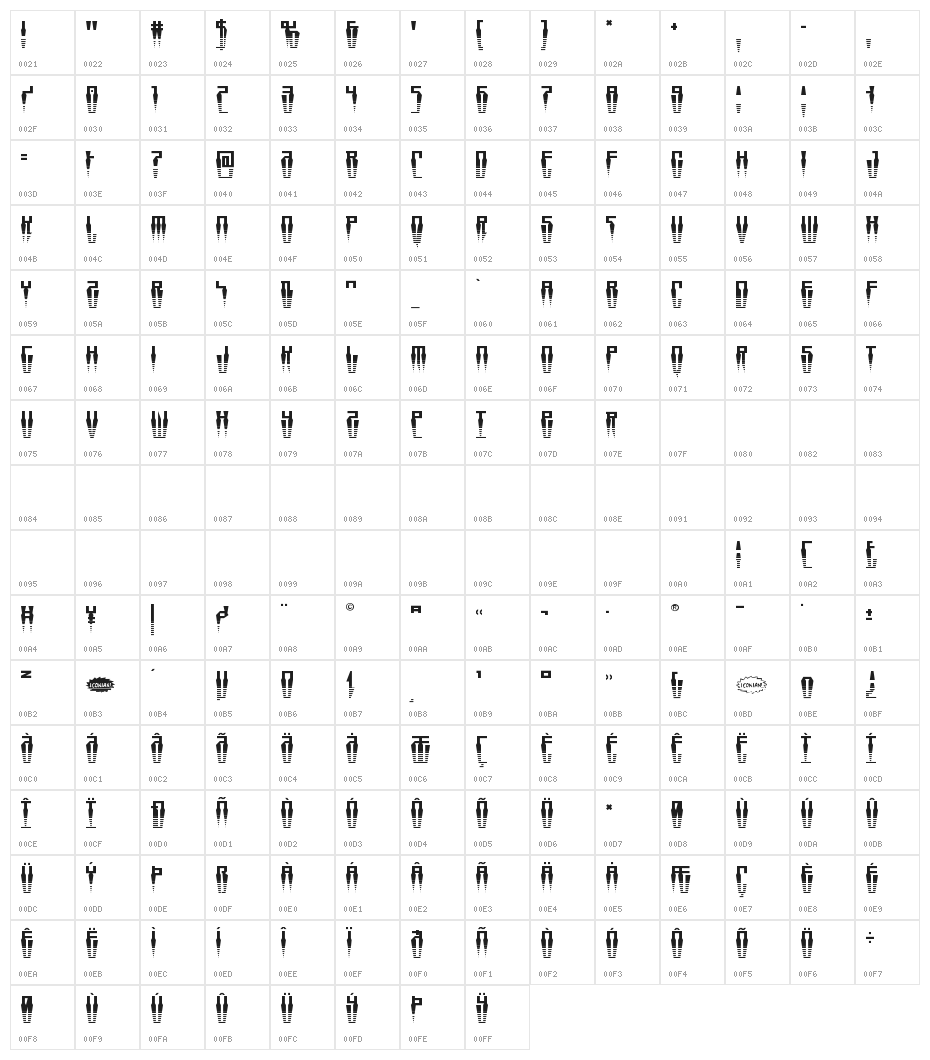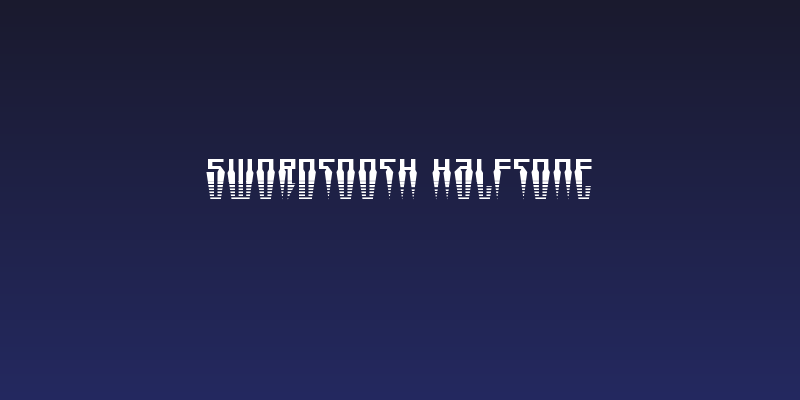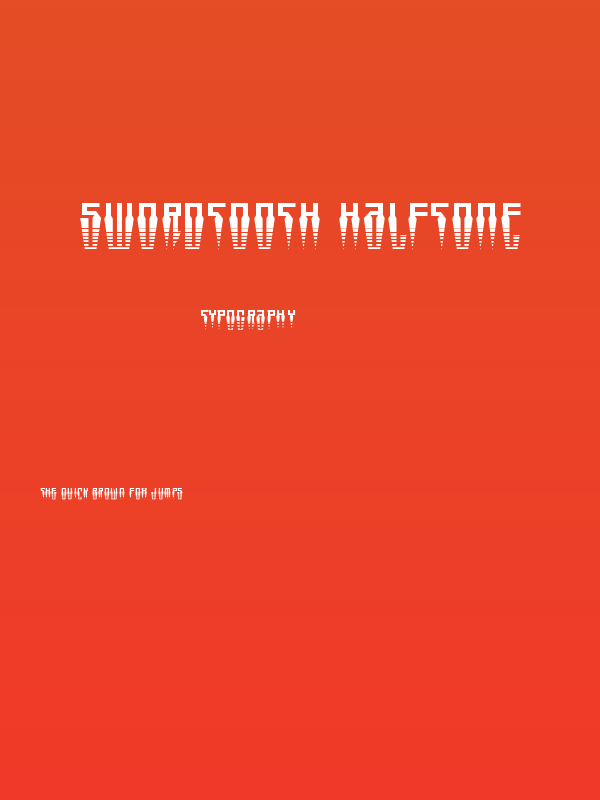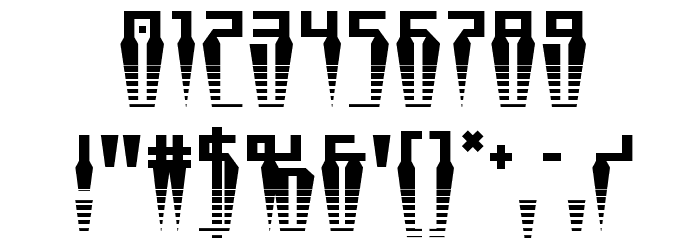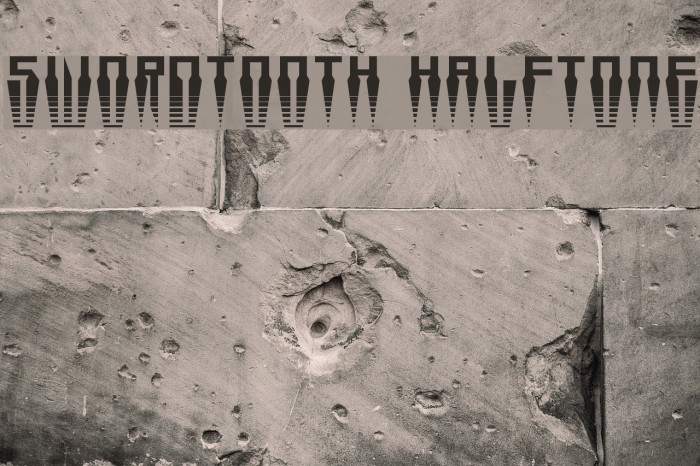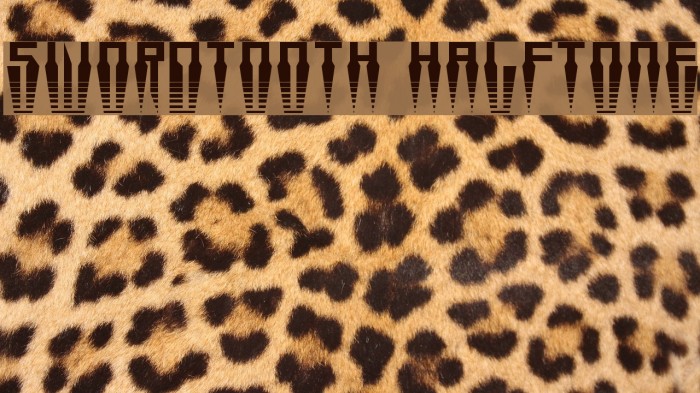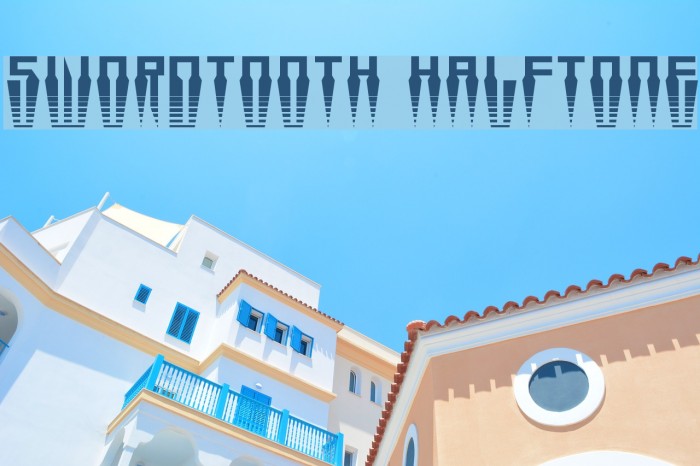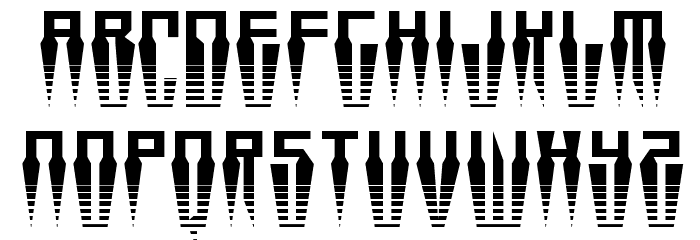
Swordtooth Halftone Font
Swordtooth Halftone Description
This font features a bold, geometric design with a distinctive halftone pattern that creates a striking visual effect. Each character is constructed with sharp, angular lines that taper into pointed ends, reminiscent of a sword's edge. The halftone pattern adds depth and texture, making the characters appear dynamic and eye-catching. The uppercase and lowercase letters maintain a consistent style, with numbers and special characters following the same design principles. This font is ideal for projects that require a modern, edgy look with a touch of retro flair.